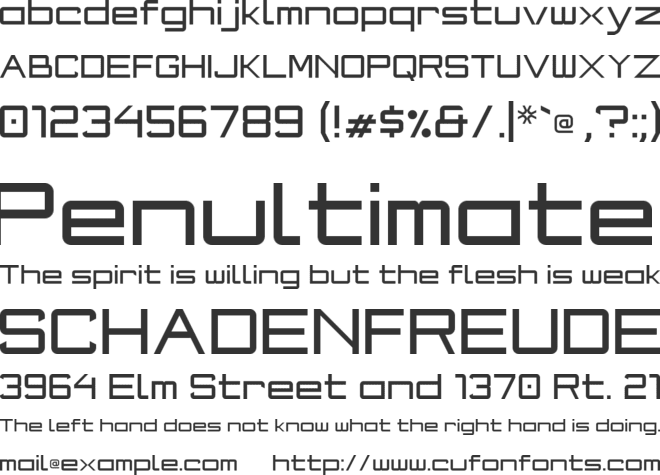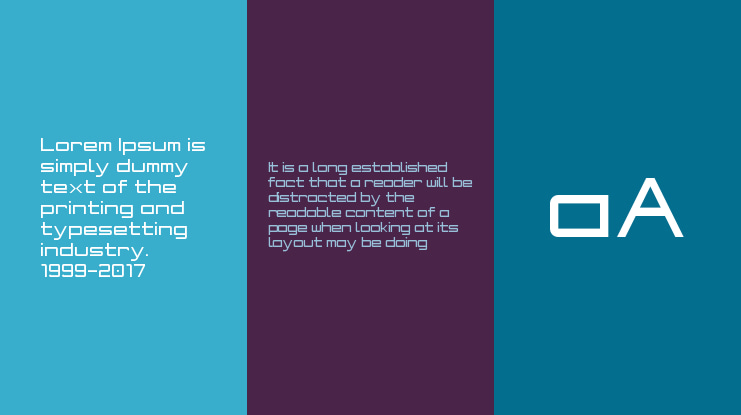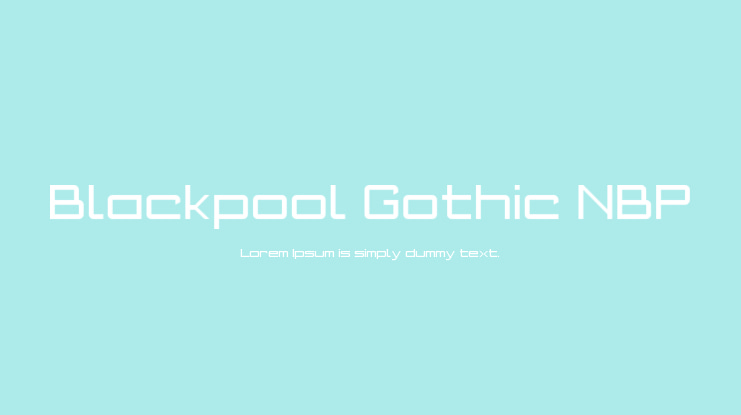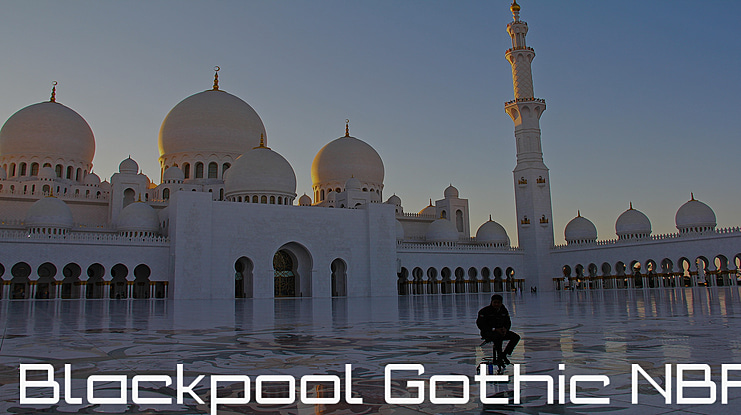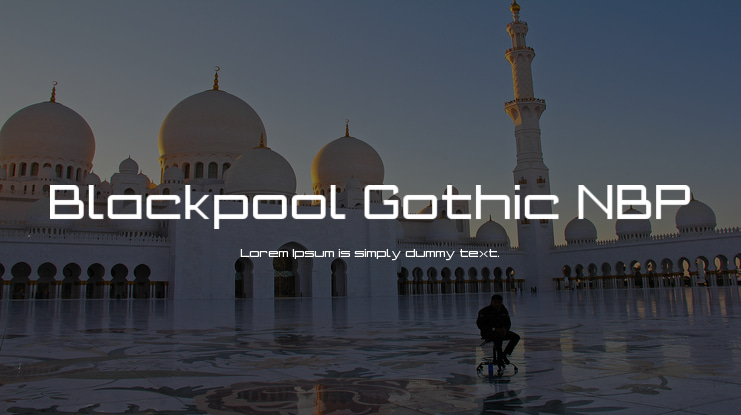
Blackpool Gothic NBP Font
Nate Halley
Finally found a design that renders the name of my birthplace rather nicely. Some Bank Gothic influence but it was mostly inspired by FF Qtype.
I might or might not keep the Energy Dome dingbat. V.1.1 might have an actual tilde. I was just too lazy to draw one today :P